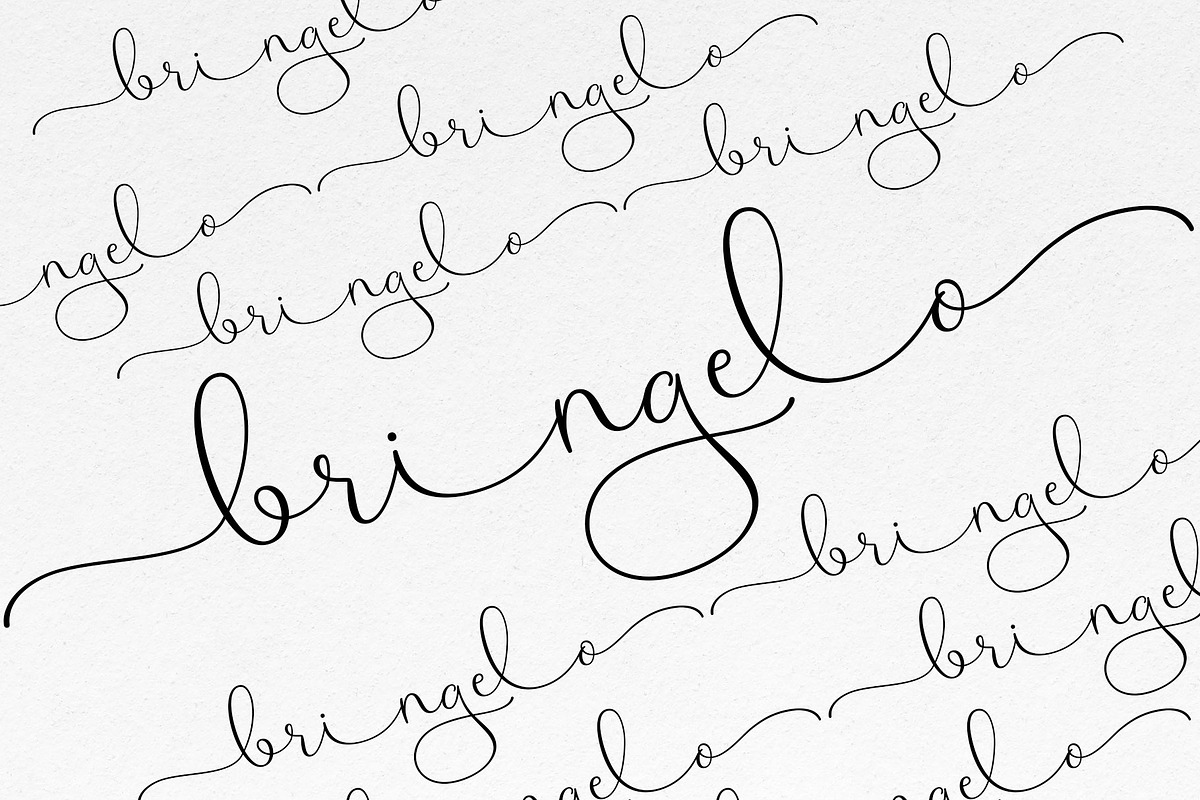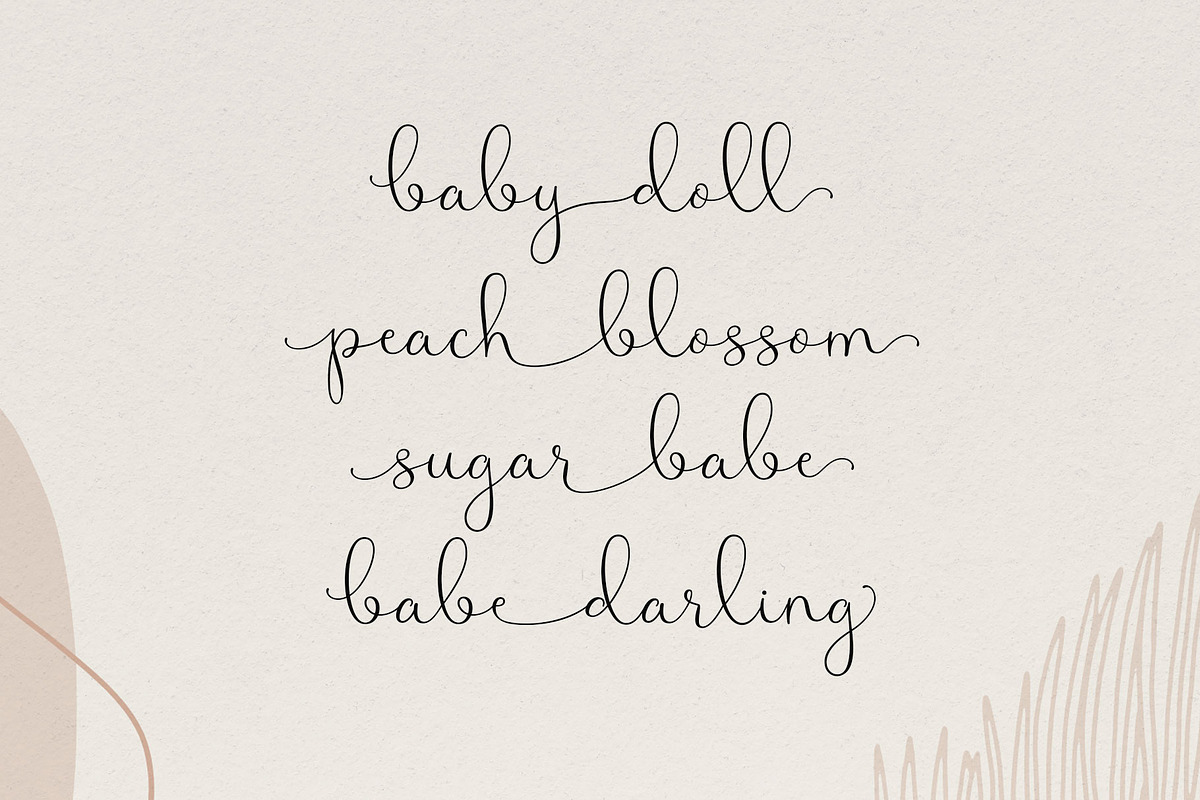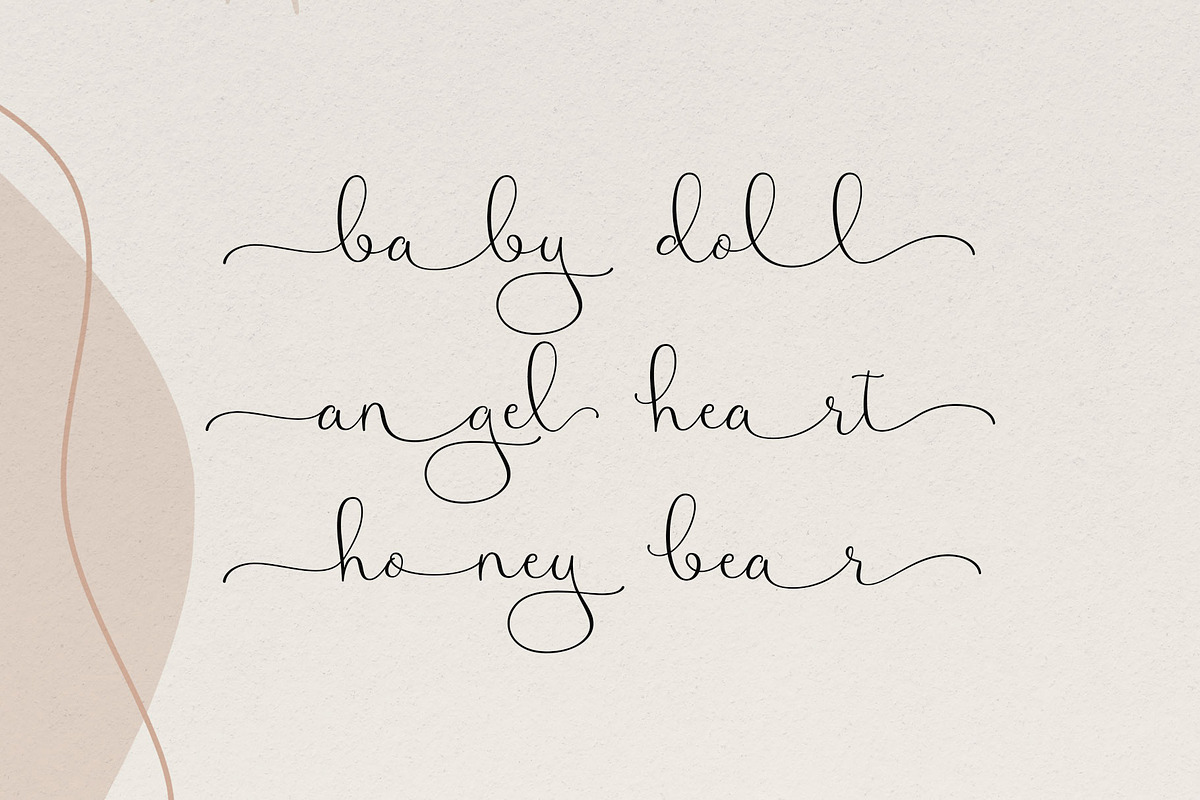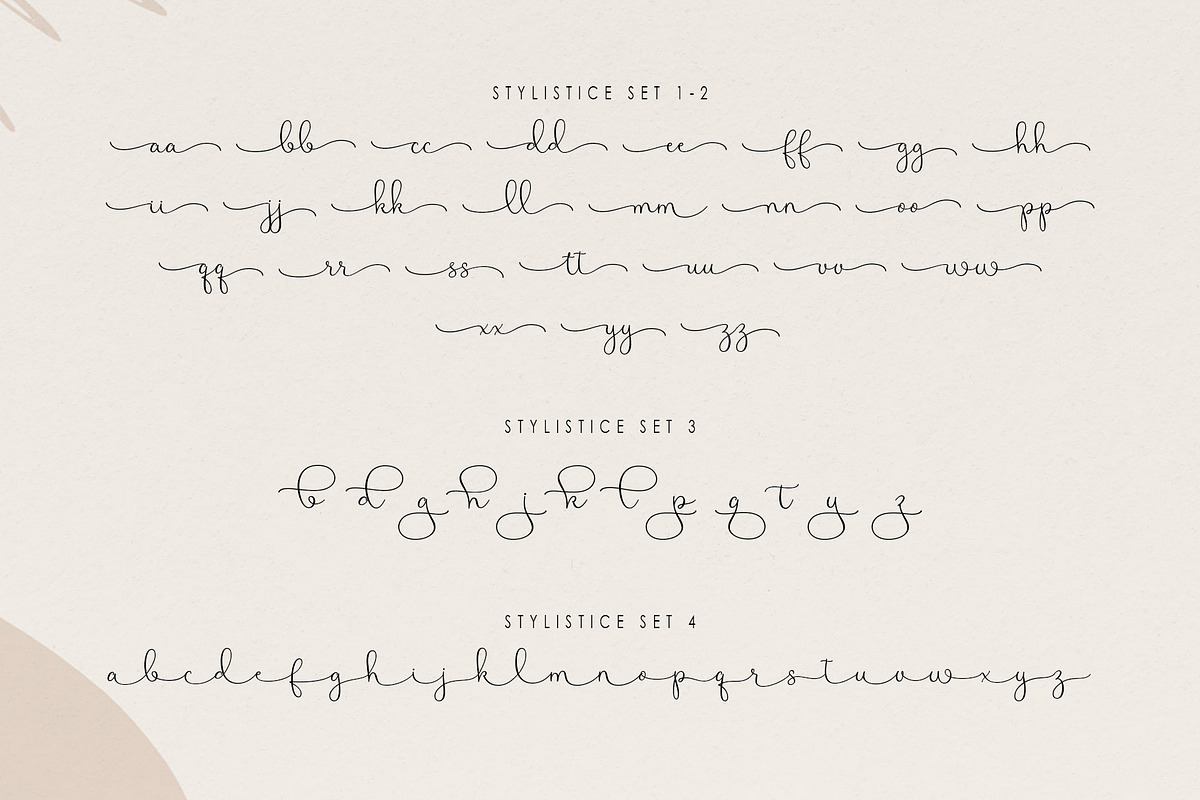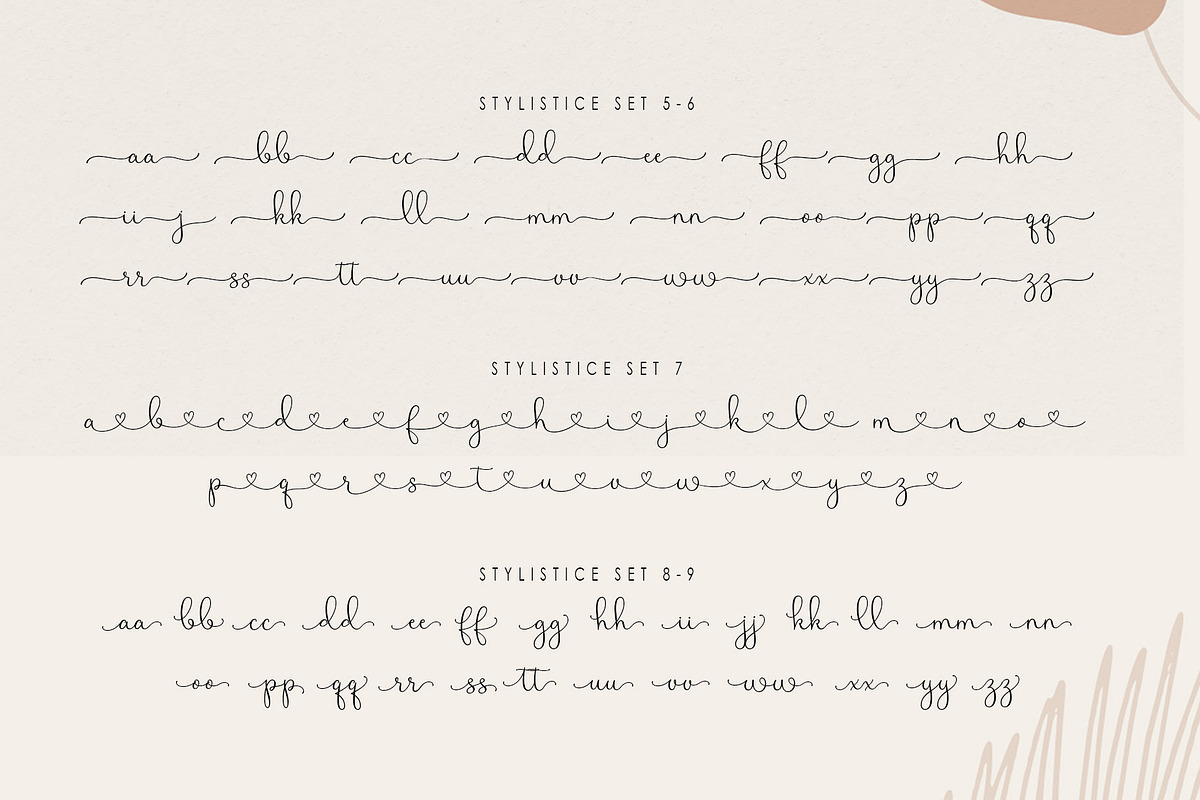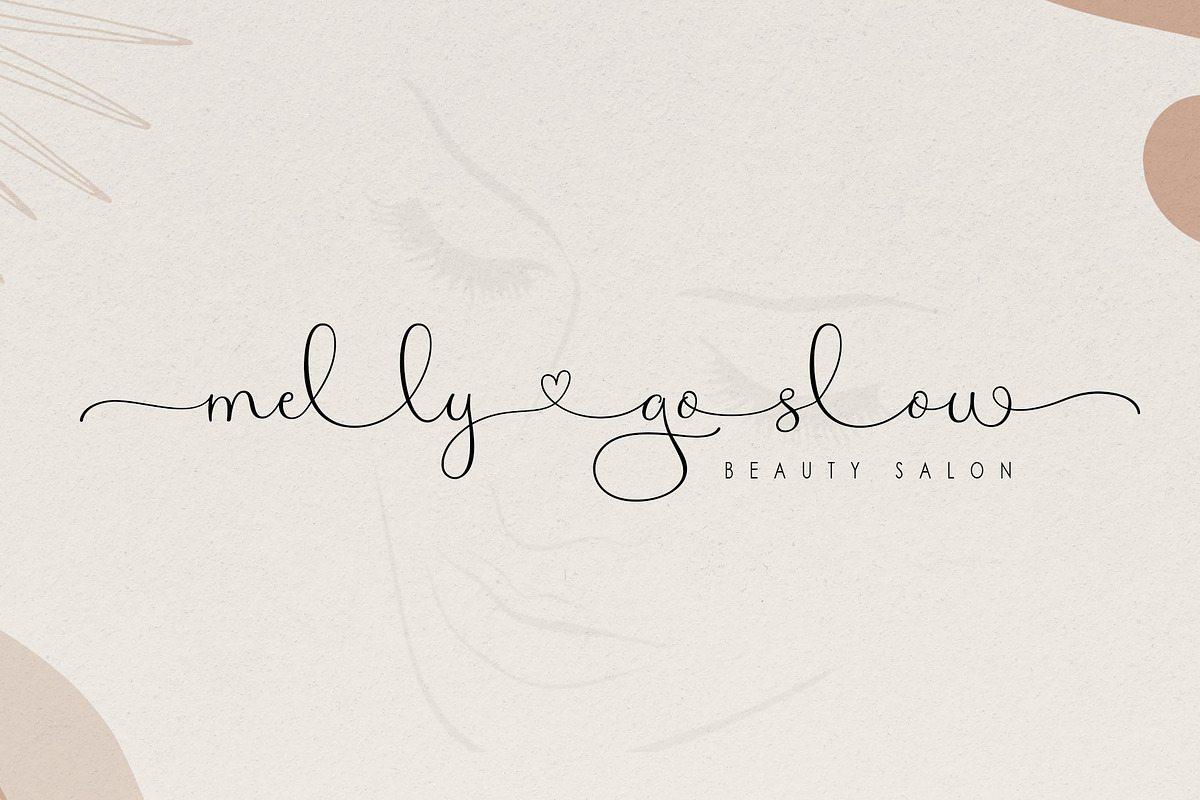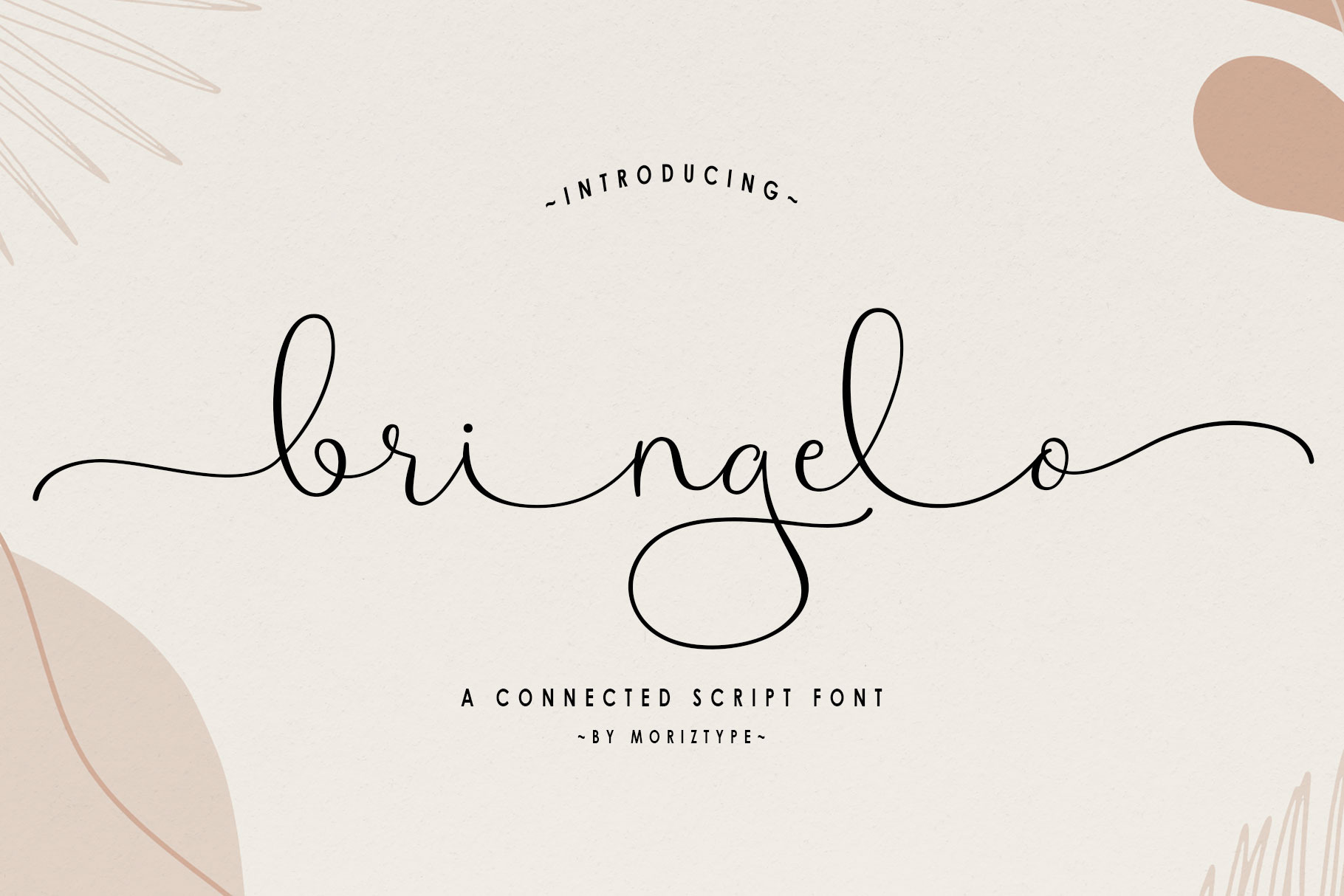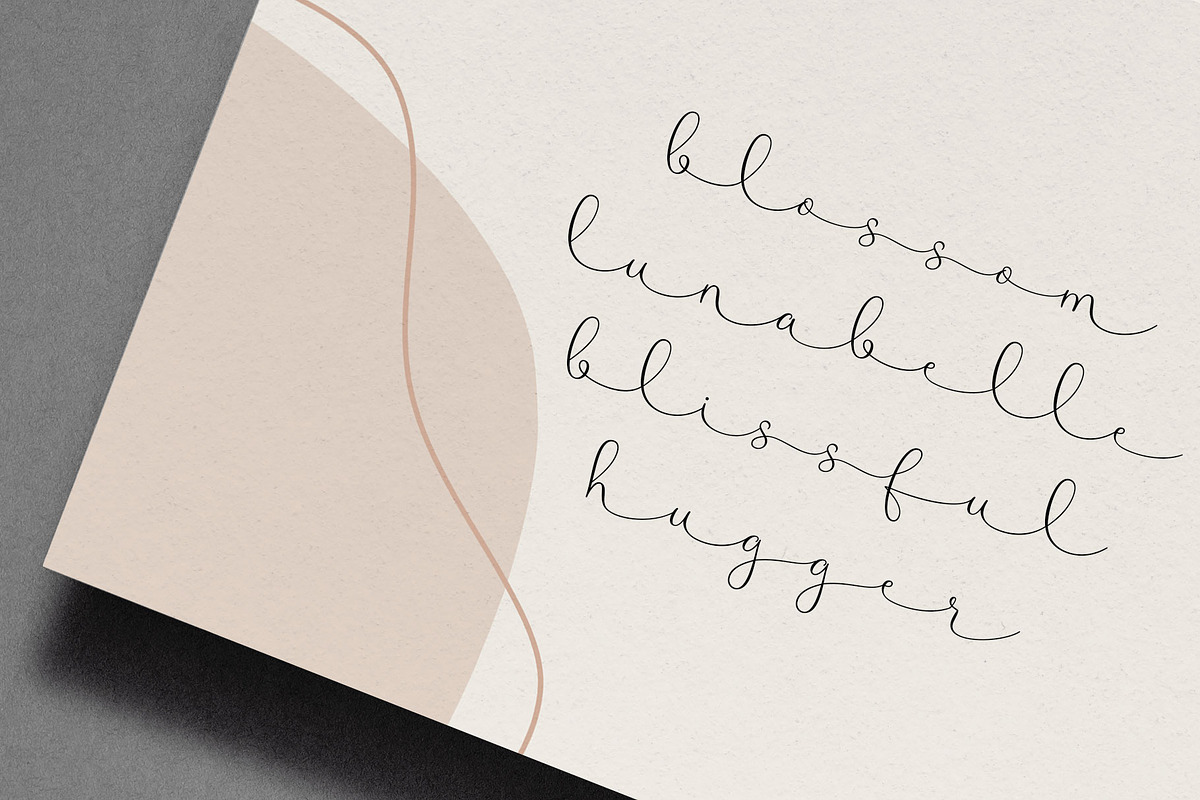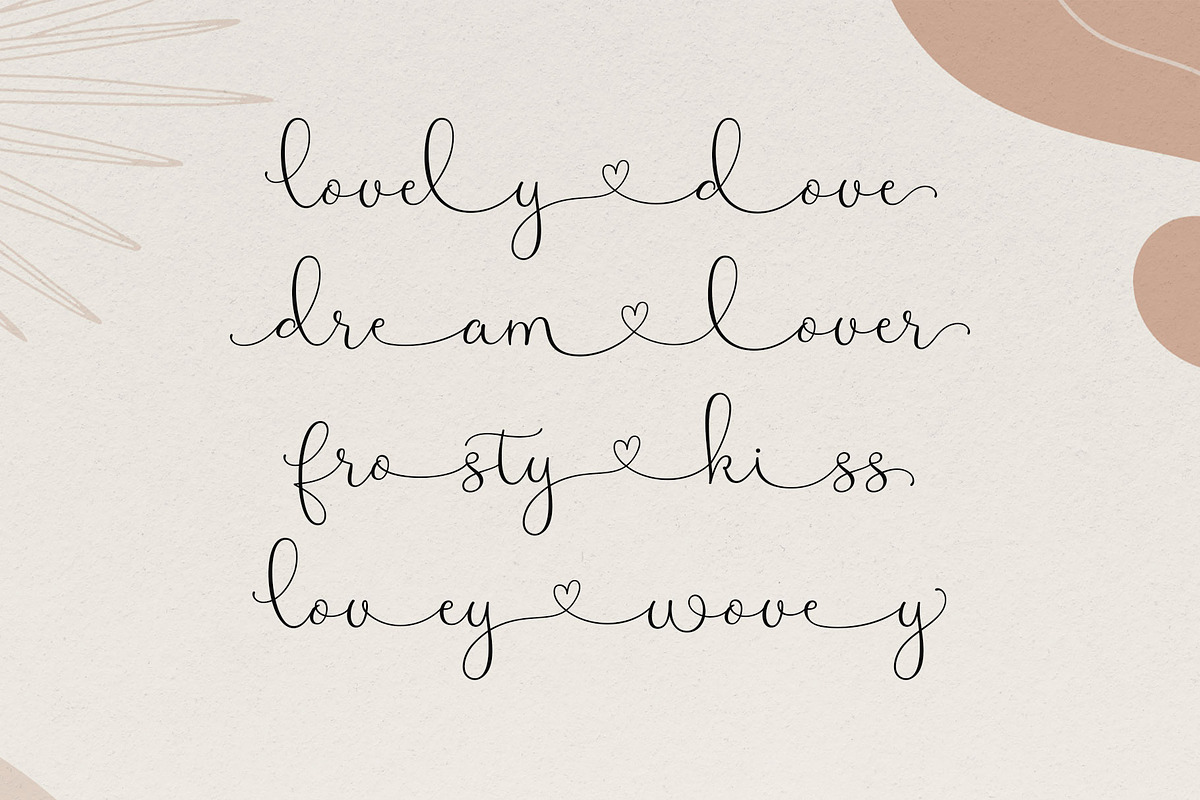
Bringelo Handwritten Wedding Font
Bringelo is a connected handwritten script, a modern script font with a soft, romantic, and elegant handwriting touch. Designed to create a warm and emotional feel, this font is perfect for designs that aim for a personal, aesthetic, and sophisticated feel.
With its flowing letterforms and balanced character, Bringelo Script creates a natural yet professional feel, making it a perfect choice for a variety of creative design needs.
Bringelo Features
- Full Set of standard alphabet and punctuation
- Extra set of beginning swashed lowercase
- Extra set of ending swashed lowercase
- Extra set of lowercase connectors (connects to lowercase only)
- Extra stylistic alternates and ligatures